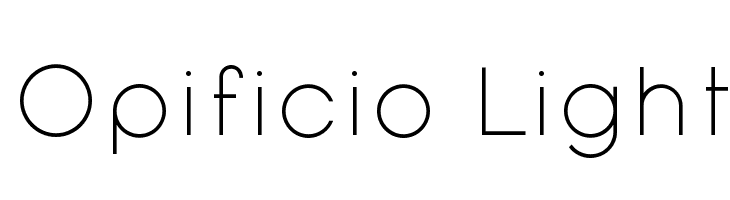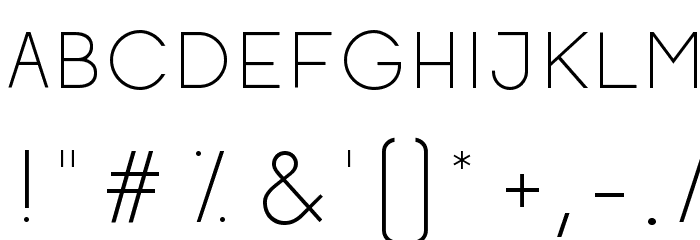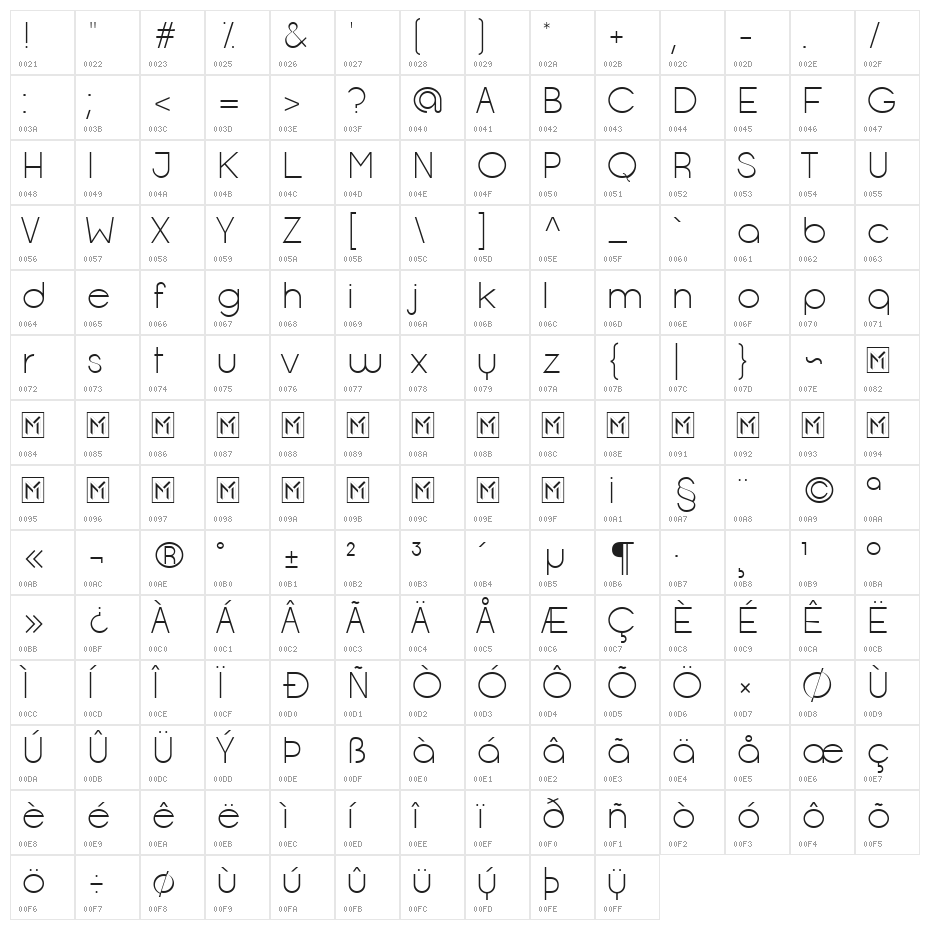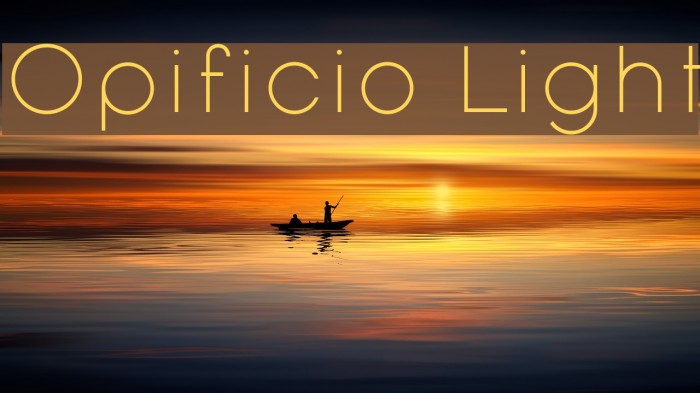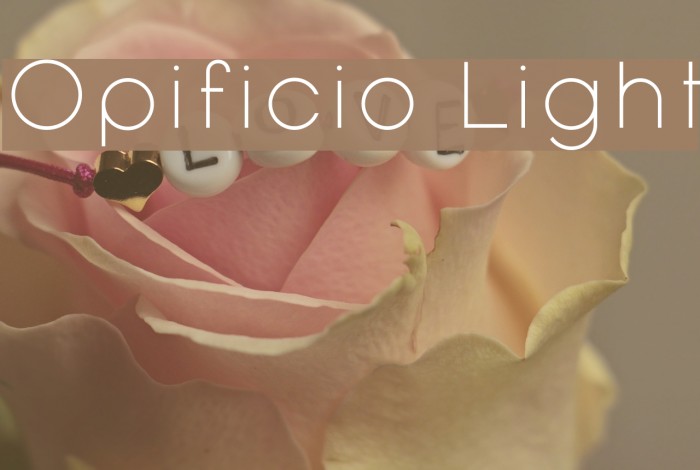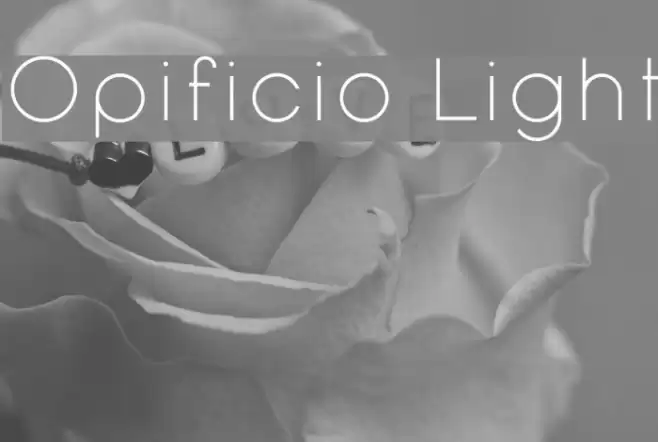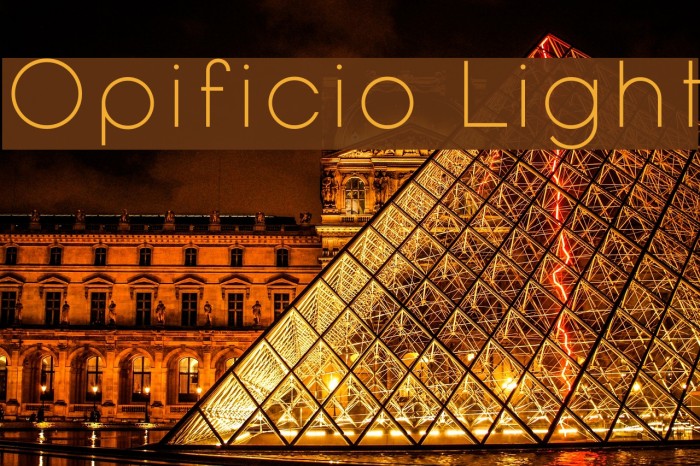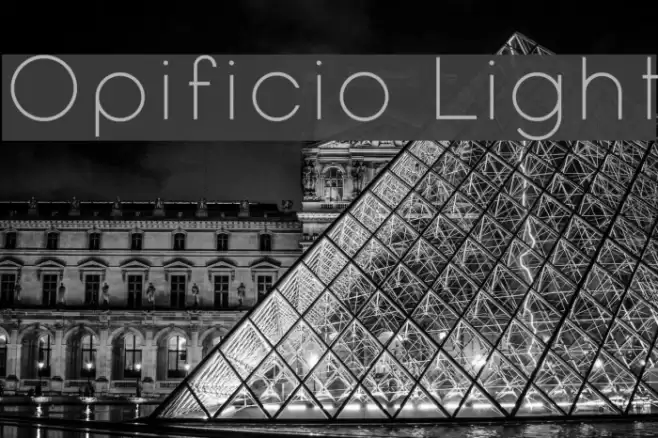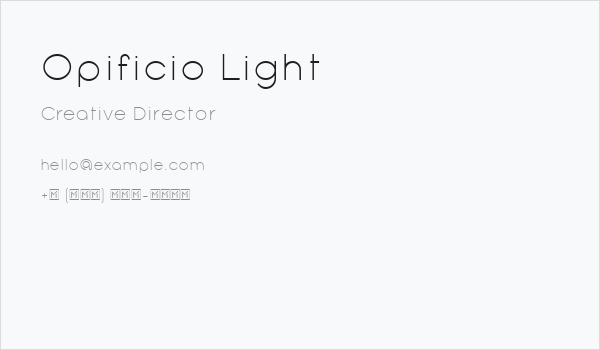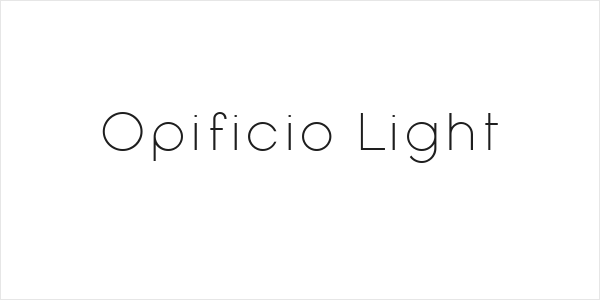
Opificio Light Font
Opificio Light Description
This typeface features a clean and minimalist design with a geometric structure. The characters are evenly spaced, providing a balanced and harmonious appearance. The uppercase and lowercase letters maintain a consistent height, contributing to its modern aesthetic. The strokes are uniform in thickness, offering a sleek and polished look. The font includes a full set of numerals and a variety of special characters, making it versatile for different applications. Its simplicity and clarity make it suitable for both digital and print media.
| Proposed Projects | Ideal for branding, editorial design, web design, and corporate materials. |